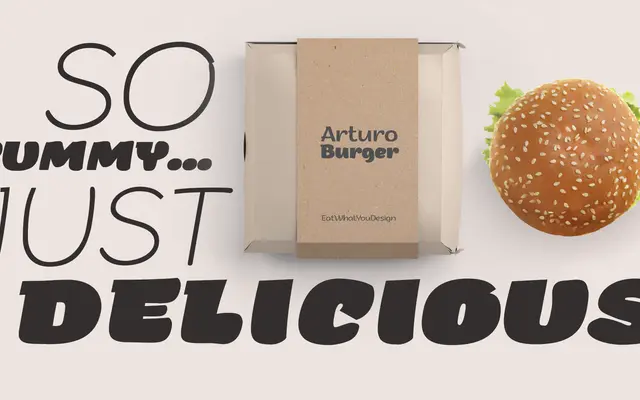
Arturo
Zetafonts · Francesco Canovaro · 2018
A seven-weight sans-serif family rooted in brush lettering research, with a Heavy Outline style for layered colour font use.
Designed by Francesco Canovaro as part of an investigation into digitally reinventing handmade brush lettering, Arturo balances a lively, playful character with the practicality of a full text family. Seven weights run from Thin to Heavy with matching italics, plus a Heavy Outline variant suited to multilayer colour font work. An extensive OpenType feature set covers small caps, stylistic alternates, unicase, multiple numeral styles and fractions, making it adaptable for both body text and logo design.
Arturo draws its forms from brush lettering traditions, giving it the warmth and organic quality associated with humanist sans-serifs, despite its digital construction and versatile text-family structure.